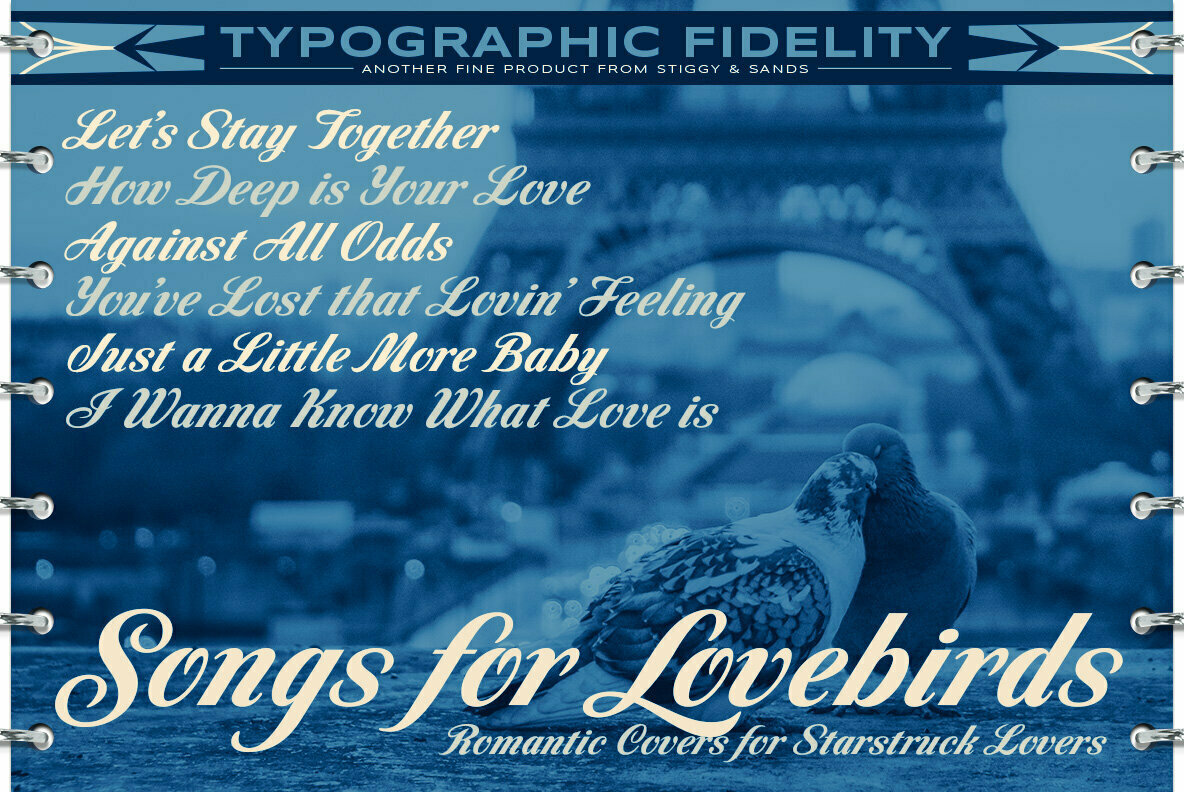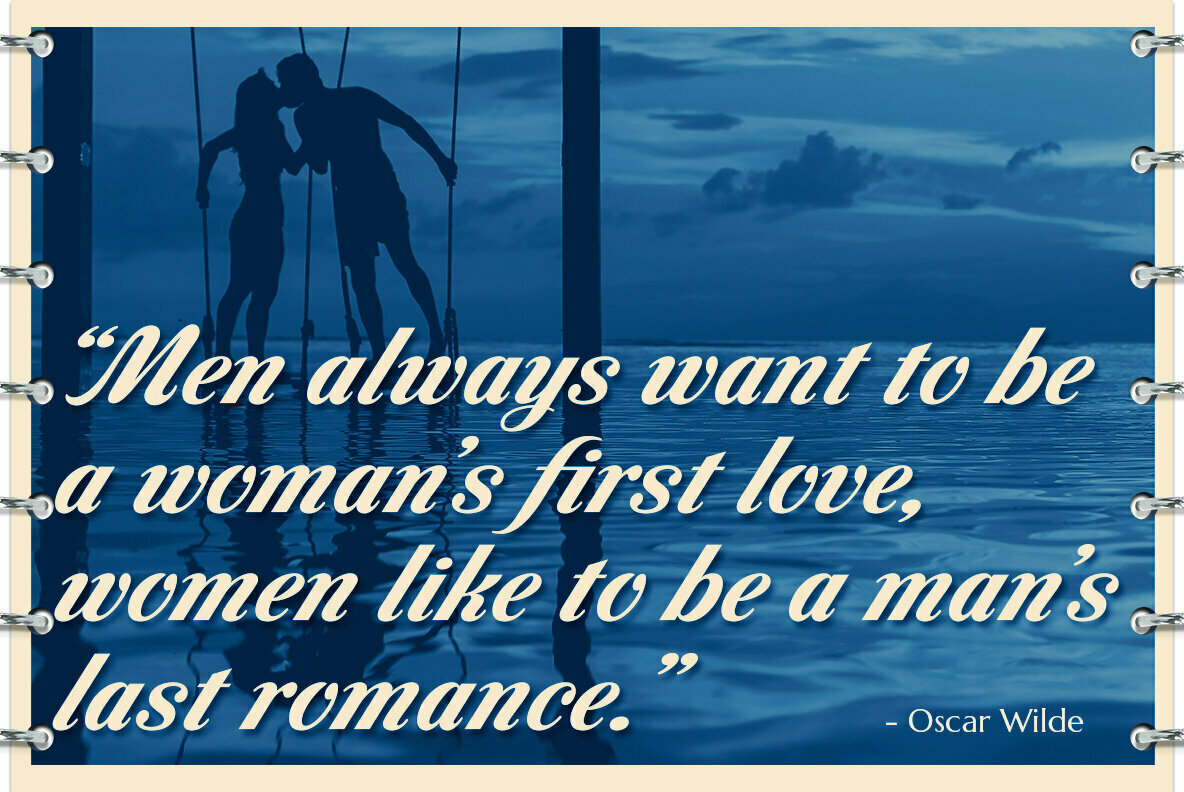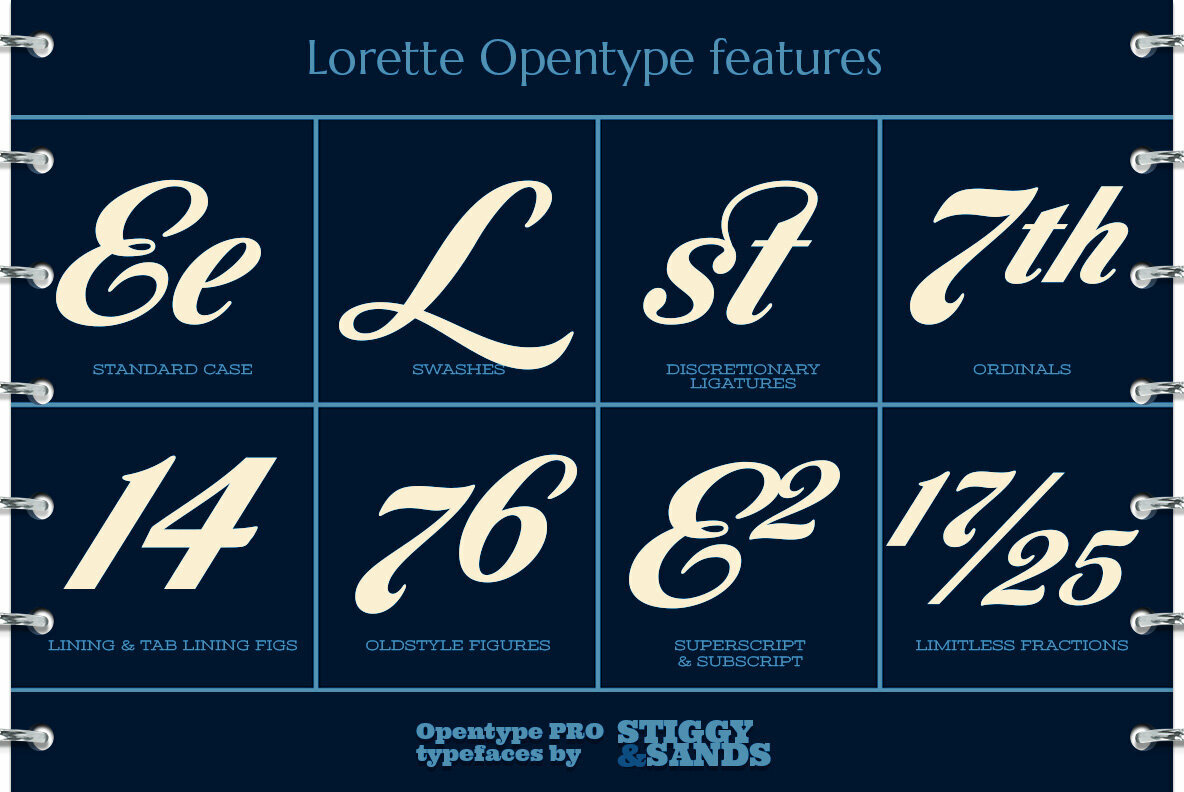
Lorette Font
A Vintage Script for Romance Novels.
Lorette began as a digitization of a film typeface from LetterGraphics known as "Laurel". The original specimen included standard Capitals, Lowercase, Numerals, and minimal punctuation, for a bare bones character set.
We've fleshed out Lorette to include a full standard character set, an extended international set, Stylistic Alternates, Ligatures, Swash Capitals, etc. so it can be a powerhouse script typestyle.
Opentype features include:
- Full set of Inferiors and Superiors for limitless fractions.
- Tabular, Proportional, and OldStyle figure sets.
- A collection of Ligatures mainly revolving around the f character.
- Discretionary Ligatures for ct and st combinations.
- 3 Stylistic Alternates for variations of some of the lowercase characters.
- a Swash feature for swash alternates of the Capital letters.
Approx. 993 Character Glyph Set: Lorette comes with a glyphset that includes standard & punctuation, international language support, and additional features.